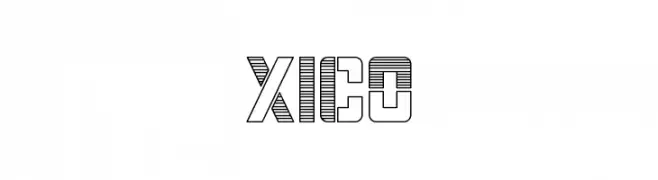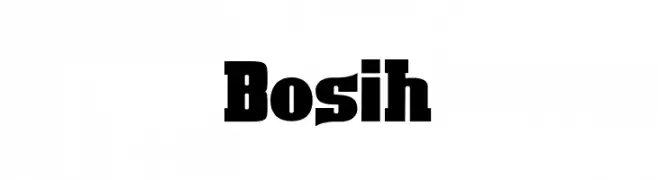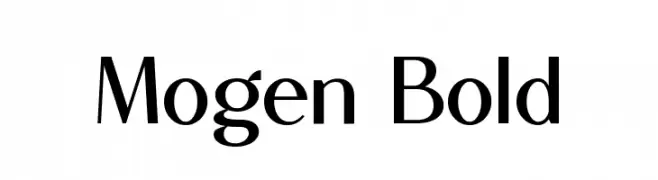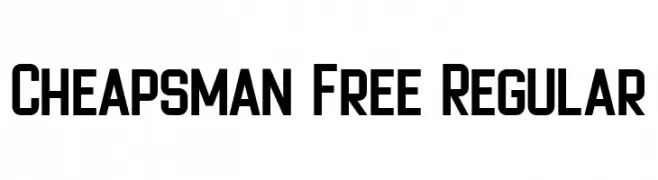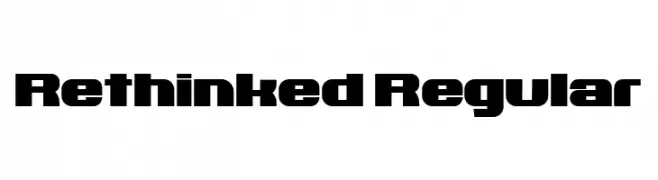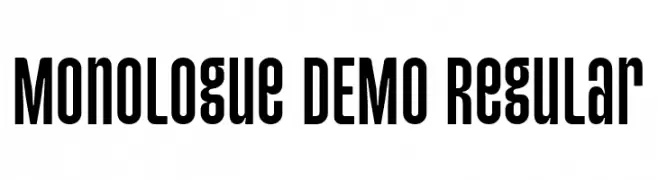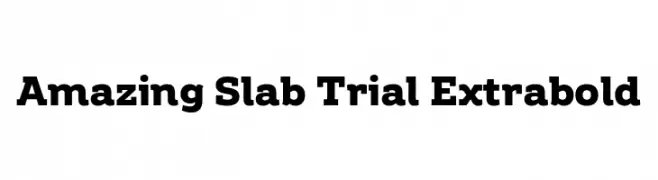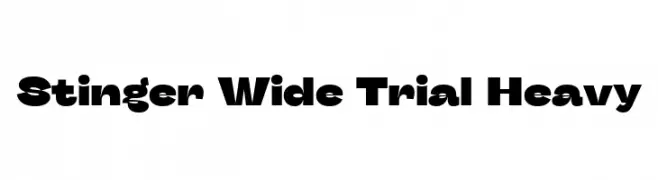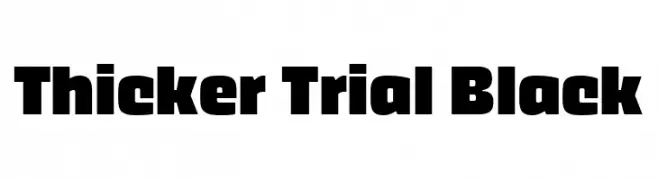
A bold, geometric font with a 3D striped effect, ideal for impactful headlines.
A bold, blocky font with strong, impactful characters.
A modern, bold font with clean lines and slight contrast, perfect for impactful designs.
A bold, geometric font with a modern and impactful style.
A bold, modern font with thick, uniform strokes for impactful designs.
Bold, modern font with strong, impactful uppercase letters.
A bold, geometric font with a modern and impactful design.
A bold, narrow typeface with a modern and impactful style.
A bold slab serif font with strong, block-like serifs for impactful text.
A bold, wide font with heavy strokes, perfect for impactful headlines.